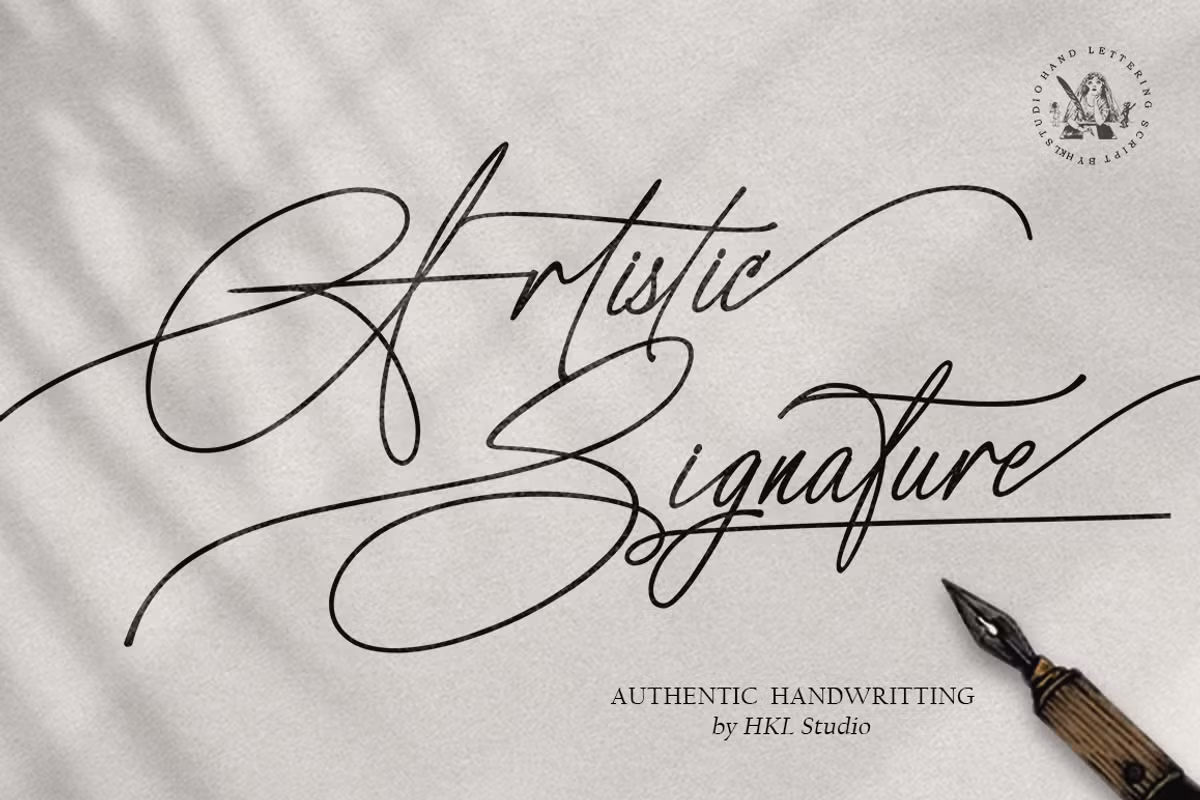
This sophisticated signature font excels in luxury branding, personal logos, wedding stationery, certificate design, autograph creation, business cards, letterheads, and high-end packaging. Its authentic handwritten style makes it perfect for projects requiring a personalized, premium touch.
Artistic Signature Font is exciting because it replicates the natural flow and pressure variations of real pen strokes, creating an incredibly authentic signature appearance. The font's dynamic baseline and organic letter connections produce a genuinely handcrafted feel that elevates any design from ordinary to extraordinary.
The Artistic Signature Font family includes multiple weights and stylistic variations, featuring alternate characters, ligatures, and swash elements that enhance the natural signature flow. Many versions offer extended glyphs with flourishes and decorative endings for added elegance.
For designers seeking to add prestige and personal authenticity to their work, Artistic Signature Font Free Download provides unmatched versatility and sophistication. This font transforms simple text into elegant signatures that convey trust, professionalism, and artistic flair. Its carefully balanced letterforms ensure readability while maintaining the spontaneous character of genuine handwriting, making it ideal for luxury brands, personal branding, and any project where distinction and authenticity matter most.